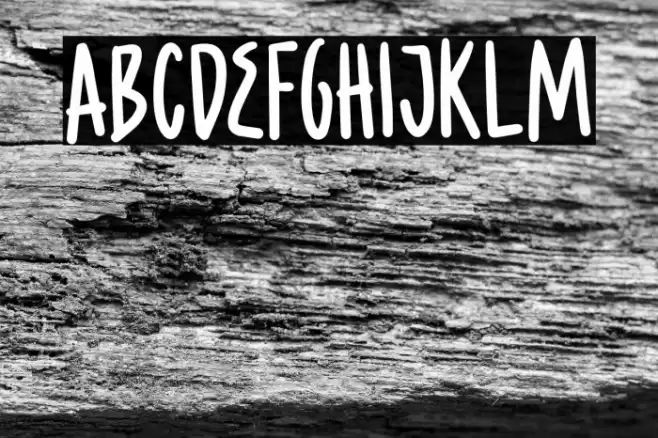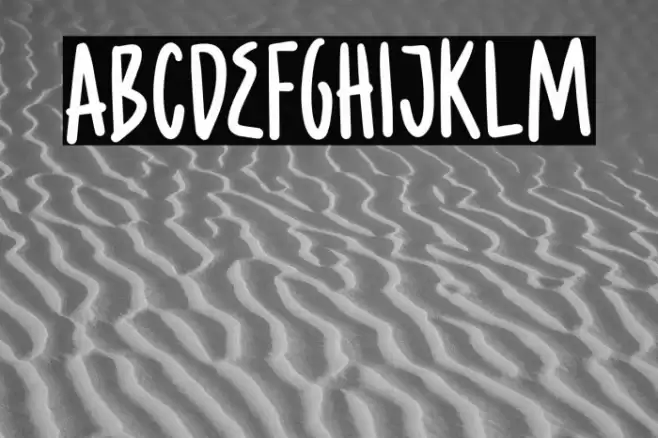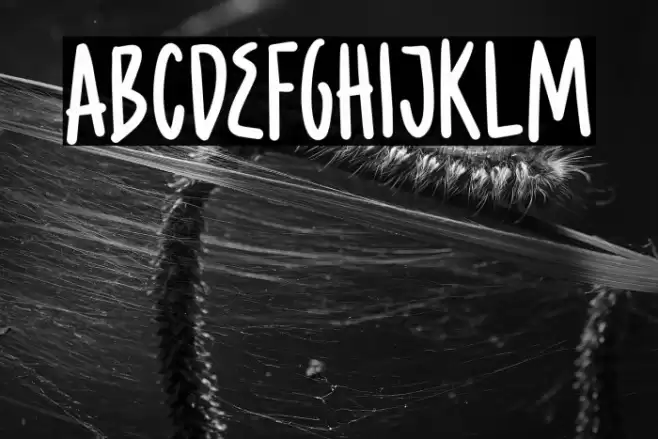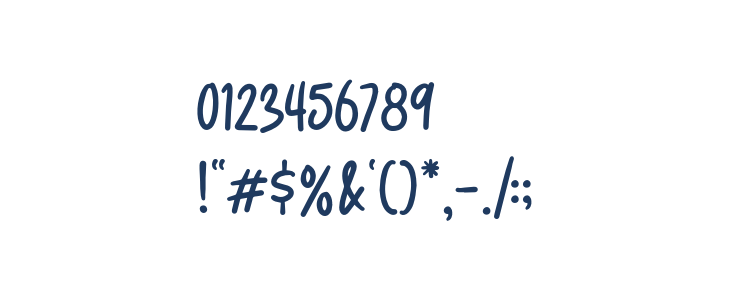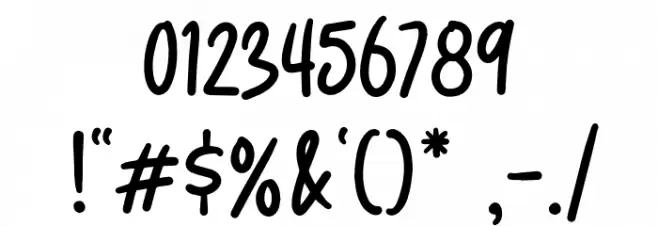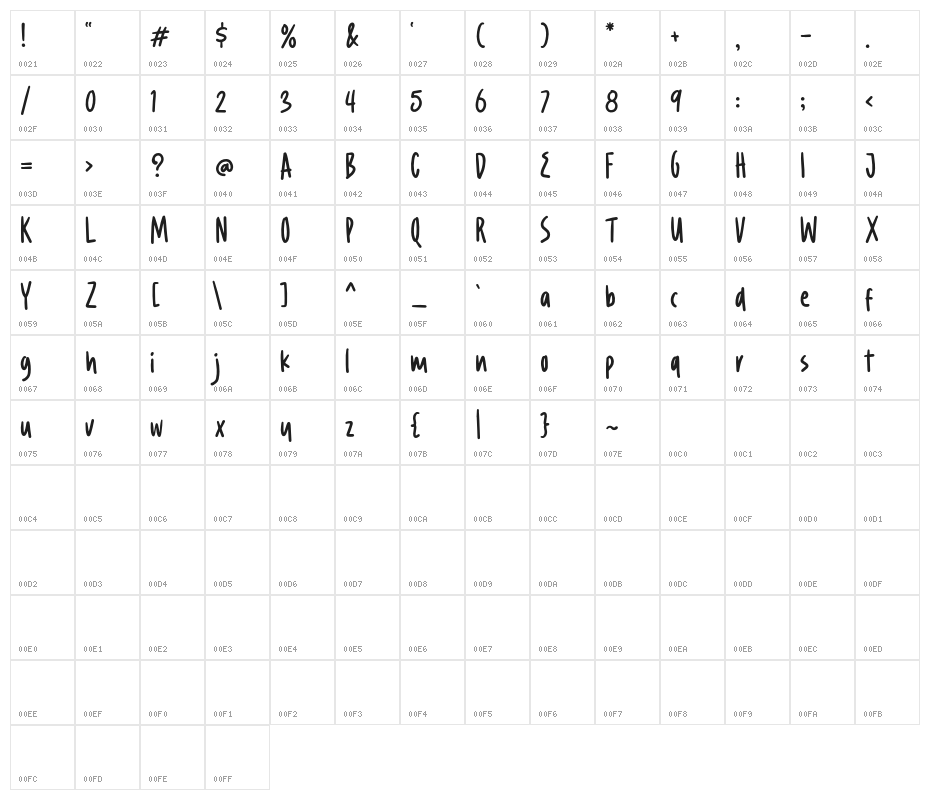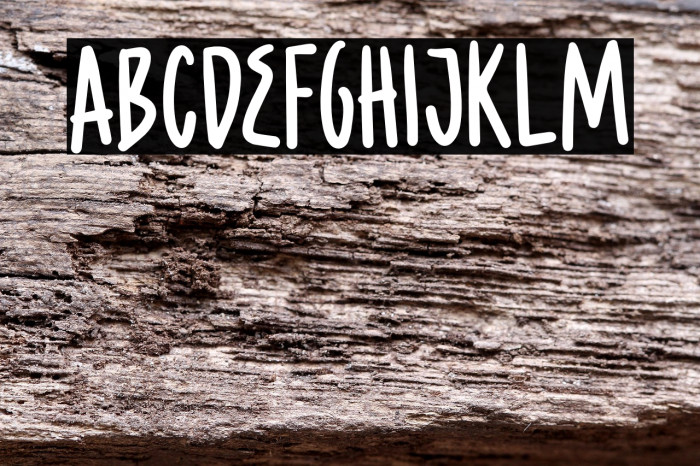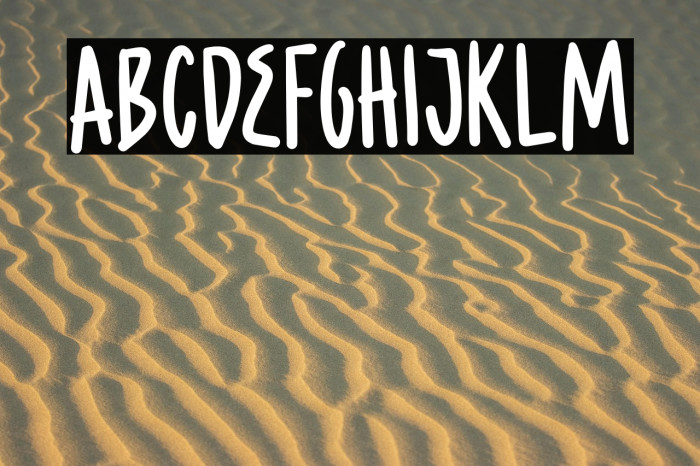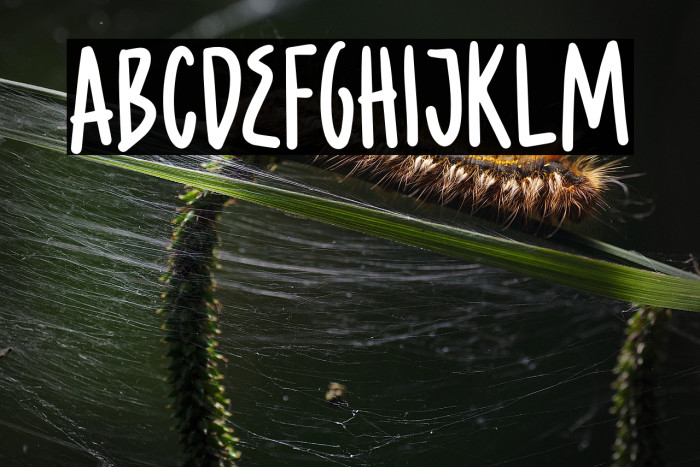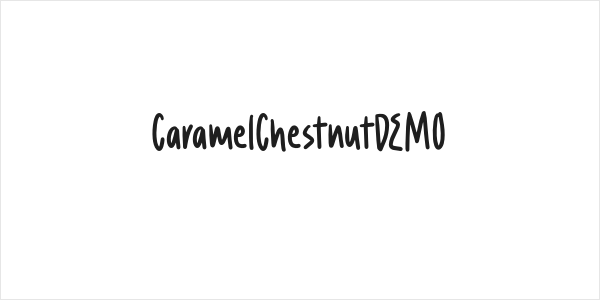
CaramelChestnutDEMO Font
CaramelChestnutDEMO Description
This font features a playful and casual handwritten style, characterized by its smooth, rounded edges and slightly irregular letterforms. The uppercase and lowercase letters maintain a consistent flow, giving it a friendly and approachable appearance. The numerals and special characters are designed to match the overall aesthetic, ensuring a cohesive look across all text elements. Its informal style makes it suitable for projects that require a personal touch or a relaxed vibe.
A playful, casual handwritten font with smooth, rounded edges from Uncategorized fonts.
- Font: CaramelChestnutDEMO
- Proposed Projects: Ideal for greeting cards, invitations, children's books, and social media graphics.
- Overall Style: Casual
- Use Case: Headlines, Logos, Informal text